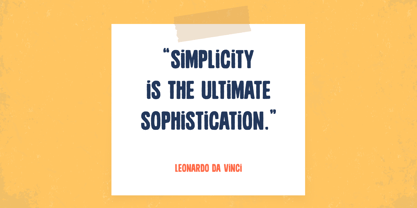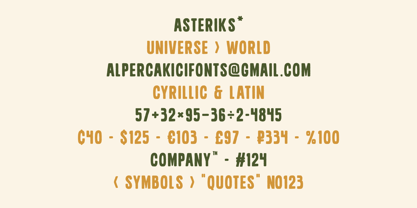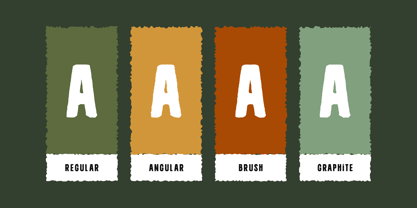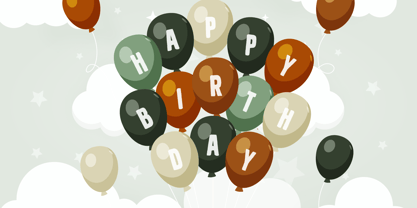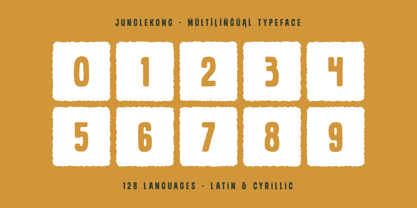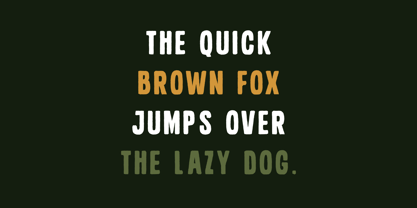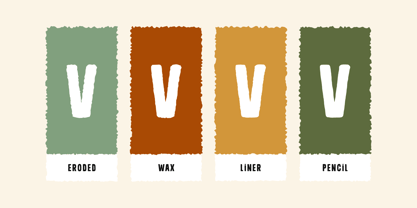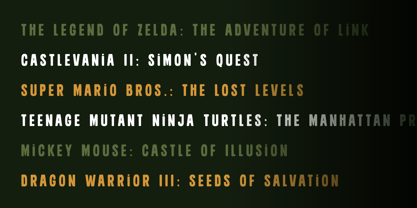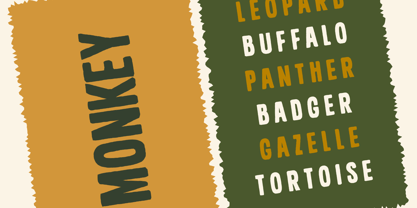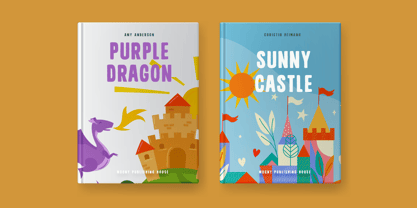
Junglekong
The Junglekong Font Family was designed by Alper Çakıcı and published by AlperCakici. Junglekong contains 20 styles and family package options. More about this family
Junglekong is a playful, handmade cutout typeface designed for bold, childlike creativity. Inspired by paper crafts, classroom doodles, and textured art materials, Junglekong brings a lively, tactile personality to every word. With 20 expressive styles, it offers a wide range of moods—from clean and graphic to rough and textured. Whether you want the scratchy charm of Pencil, the dusty feel of Chalk, the organic warmth of Brush, or the bold texture of Wax and Rough, Junglekong gives you creative flexibility while maintaining a cohesive handcrafted look. Its slightly irregular forms and organic rhythm make it perfect for: Children’s books Playful branding Posters and packaging Educational materials Party designs Social media graphics DIY-inspired projects Junglekong supports 128 languages, making it a versatile choice for international projects that need personality and warmth. Included Styles (20 total): Angular, Angular Italic, Brush, Brush Italic, Chalk, Chalk Italic, Eroded, Eroded Italic, Graphite, Graphite Italic, Regular, Italic, Liner, Liner Italic, Pencil, Pencil Italic, Rough, Rough Italic, Wax, Wax Italic. Junglekong is not just a font—it’s a playful creative toolkit for designers who want their typography to feel handmade, energetic, and full of imagination.